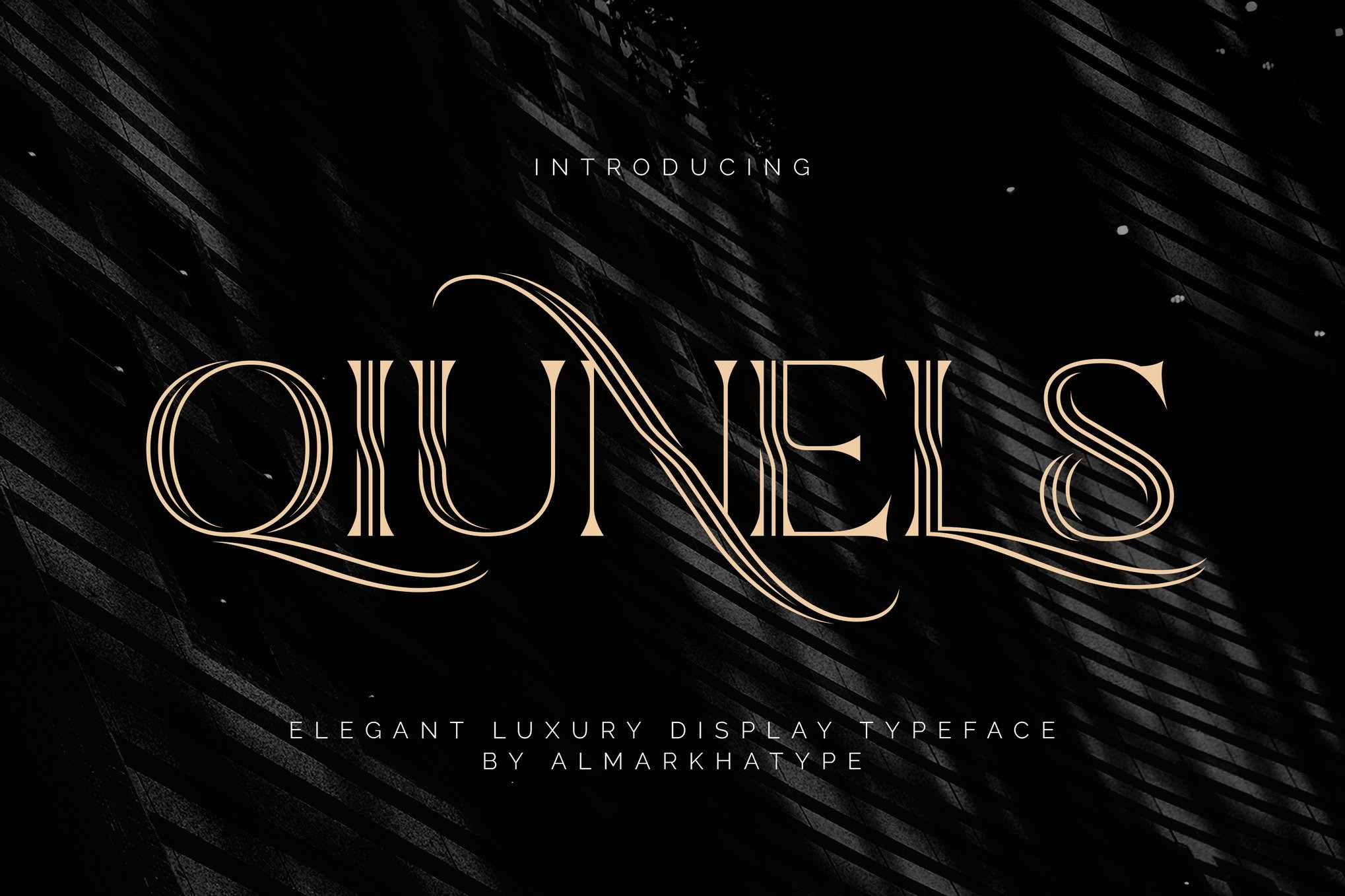
Quunels Font
Quunels Font is a premium-quality font developed to enhance your work with a polished, modern, and visually elevated look. Quunels — Elegant Luxury Display Serif, a unique font that uses lines to convey an impression of elegance and modernity. Perfect for adding a unique touch to logos, monograms, or quotation marks. Qiunels has 21 characters. The alternative can be disabled if standard writing needs are required.